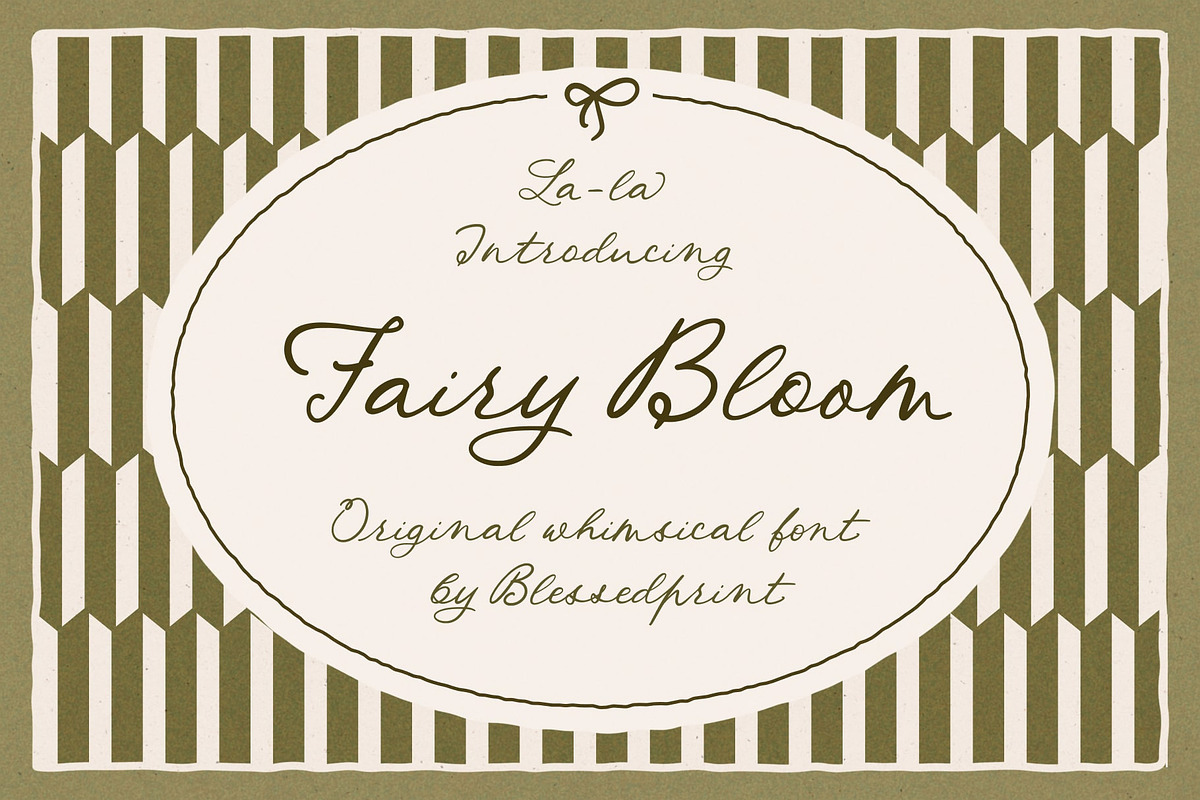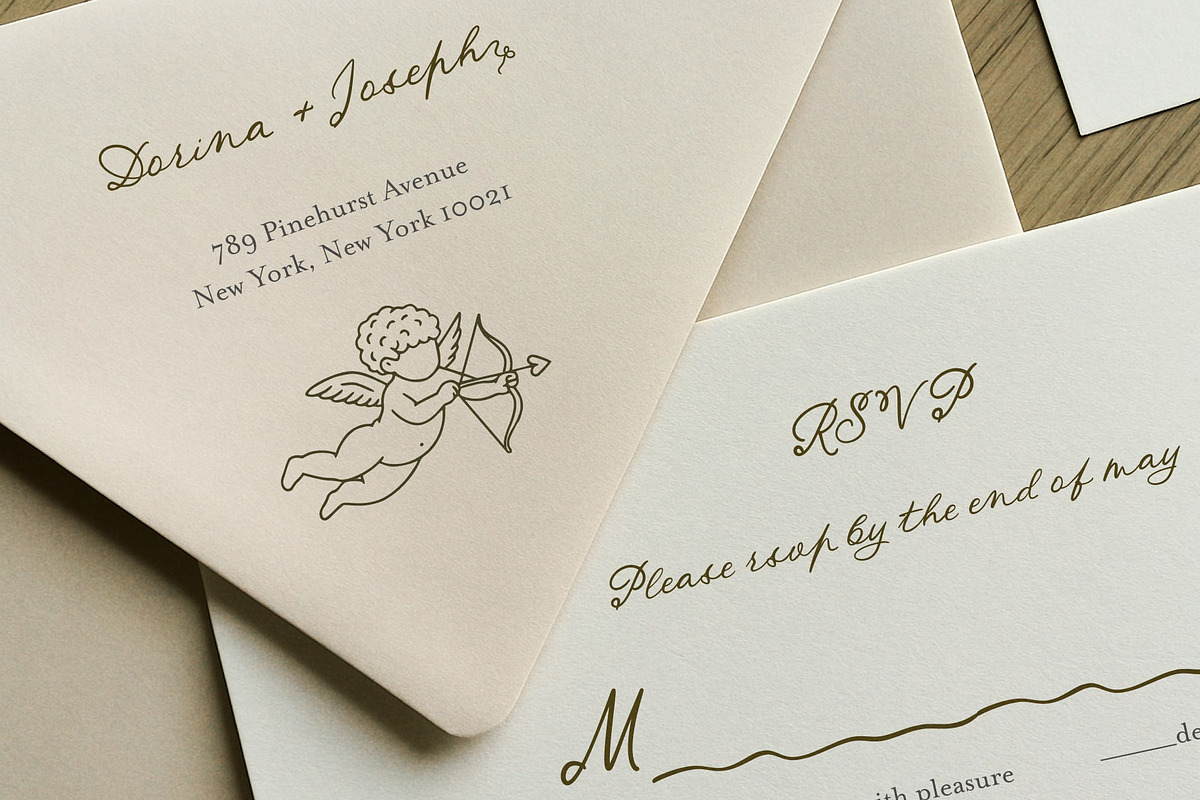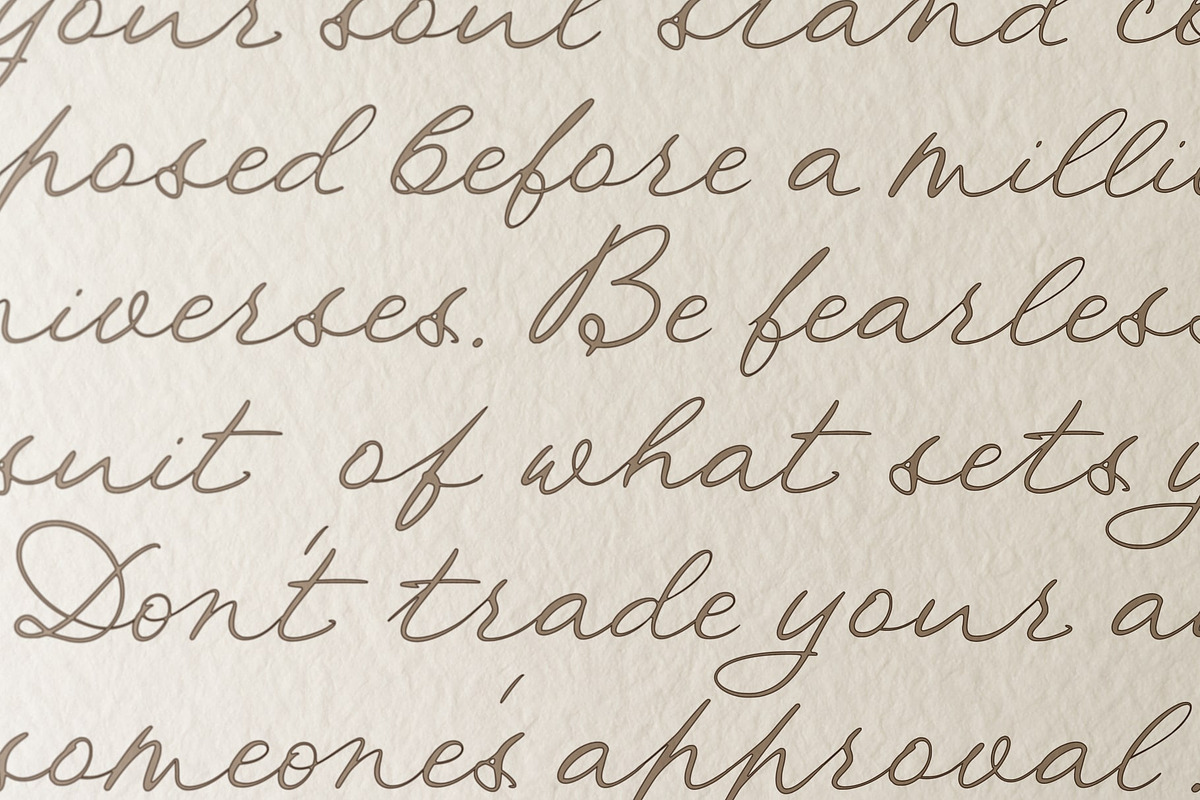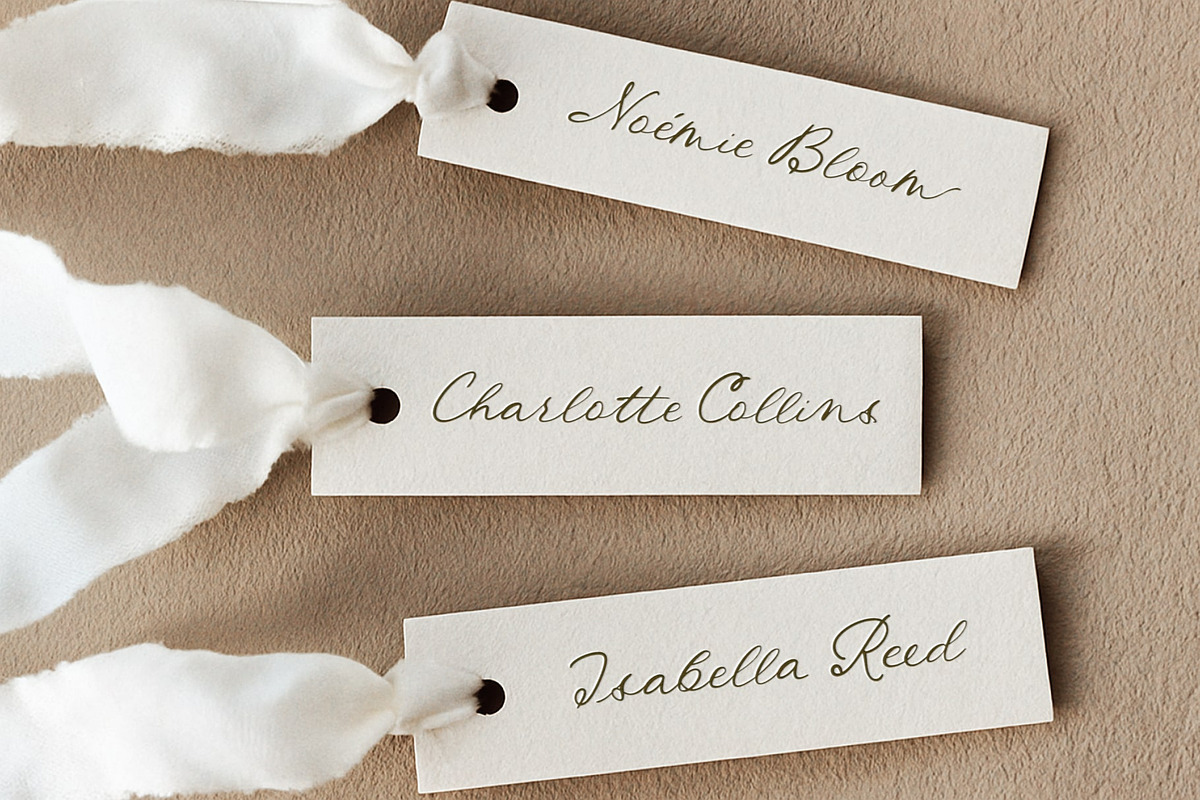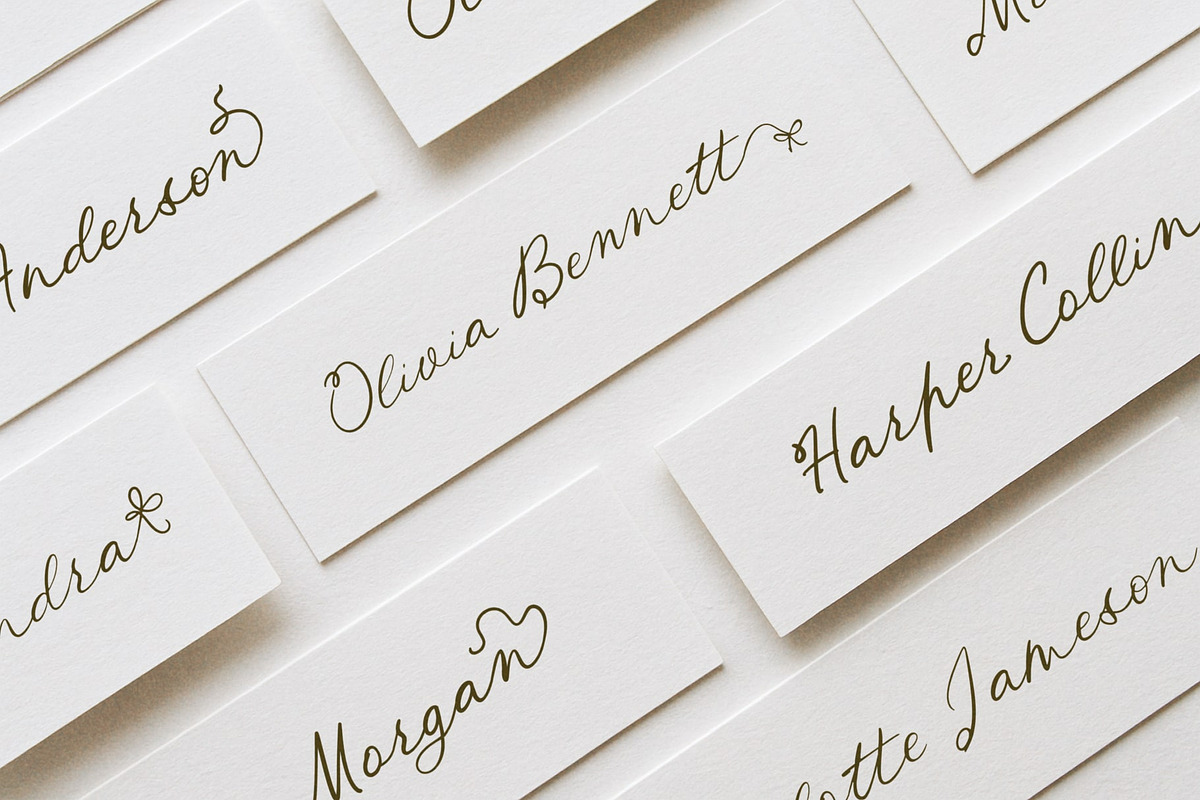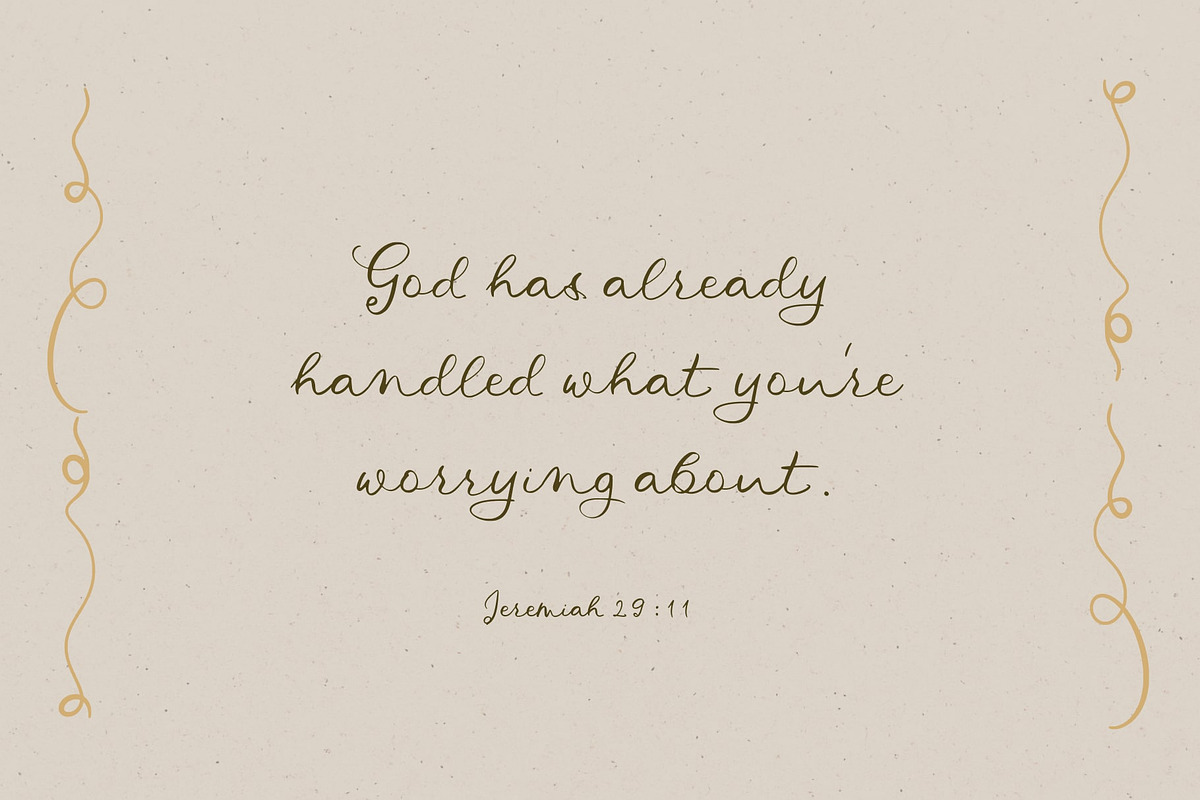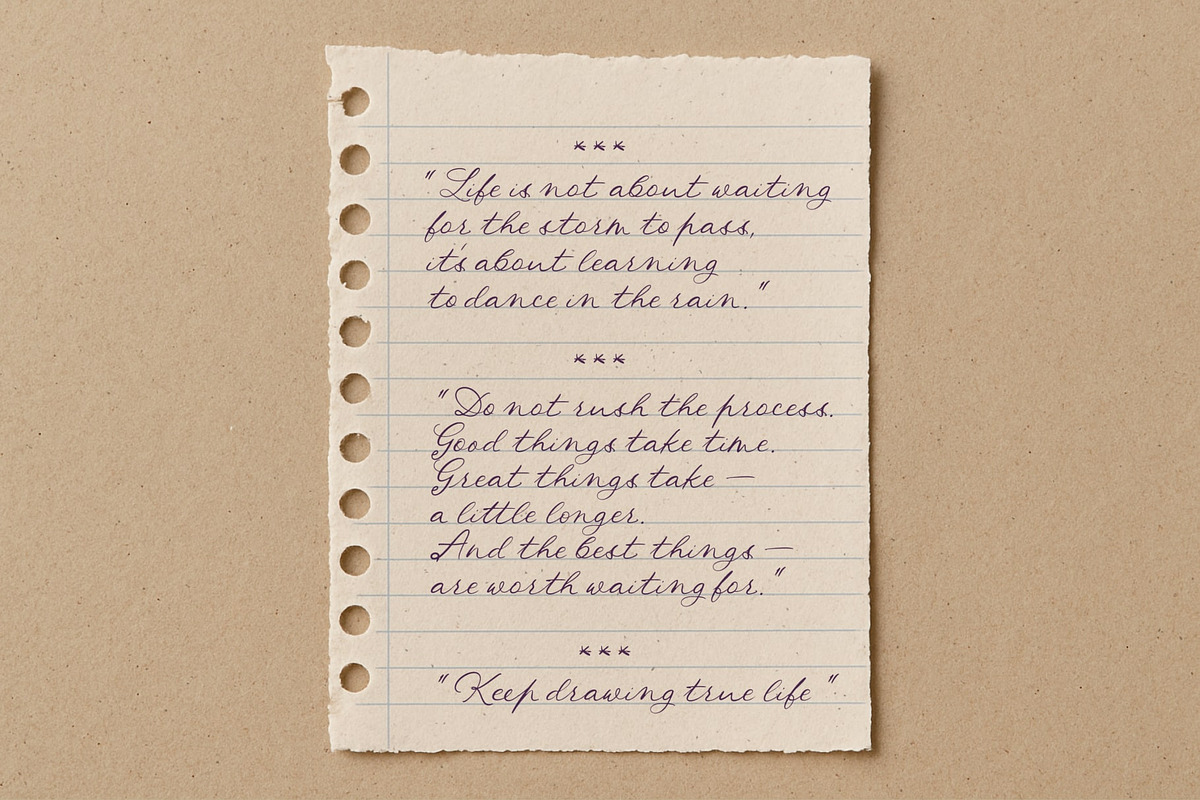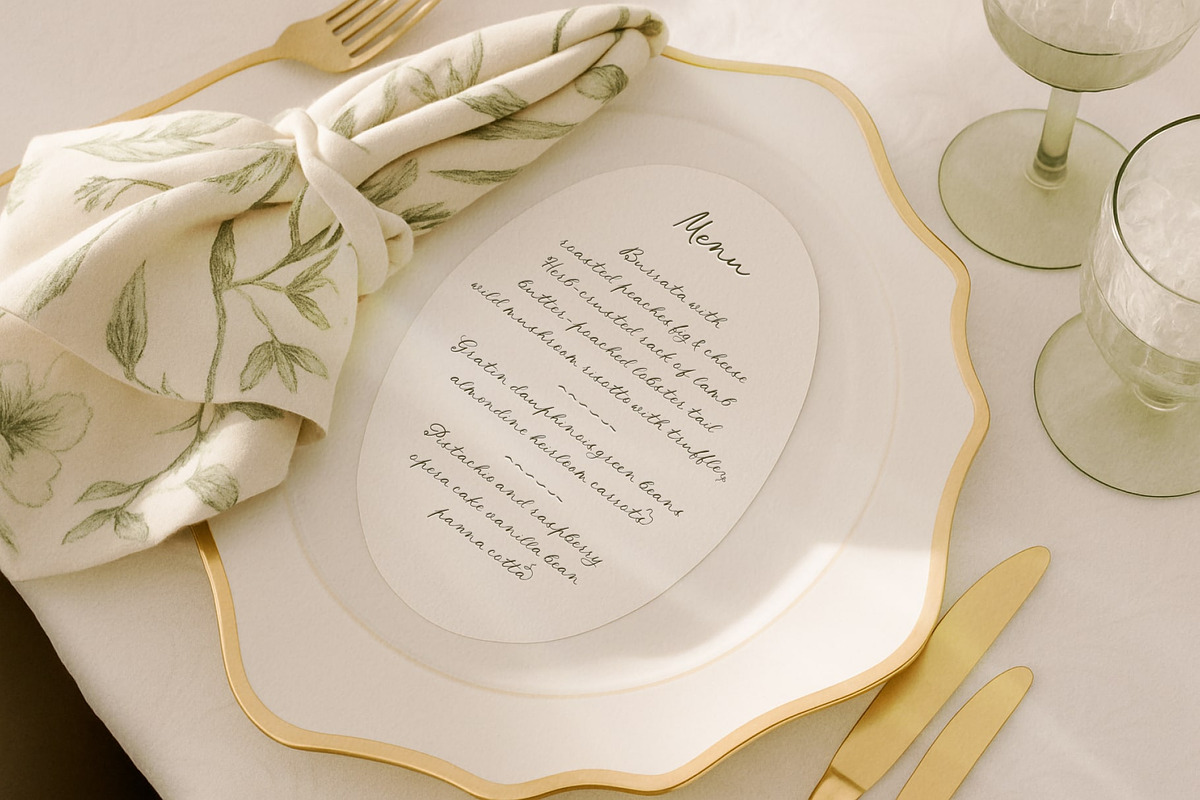
Fairy Bloom – Whimsical Font
Introducing Fairy Bloom – Whimsical Script Font
Fairy Bloom is a romantic script with an airy, whimsical charm and modern calligraphy style. Designed for elegance and playful versatility, it's perfect for wedding invitations, signage, branding, and creative projects.
- Two sets of uppercase letters (Type A1, B1, C1 in Canva, Templett, Corjl for alternates)
- Lowercase letters with alternate endings
- Decorative swashes triggered by brackets (e.g., ]1, ]2)
- Roman numerals (type I=, I=II, IV, etc.)
PERFECT FOR:
- DIY wedding invites
- Logos and elegant branding
- Social media graphics
- Calligraphy and stationery lovers
Let Fairy Bloom add magic and elegance to your designs.